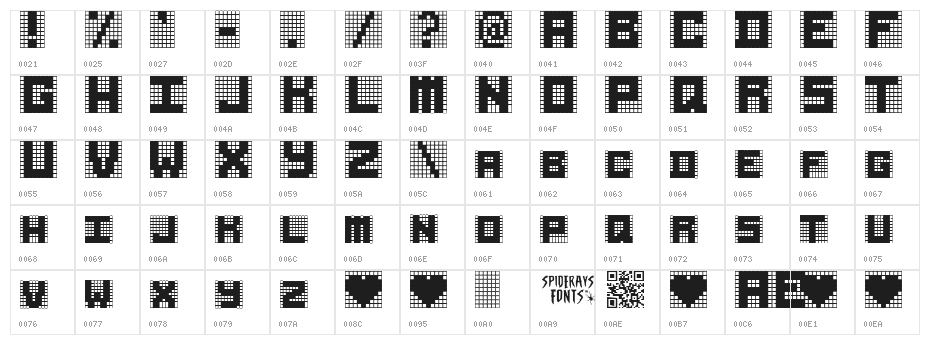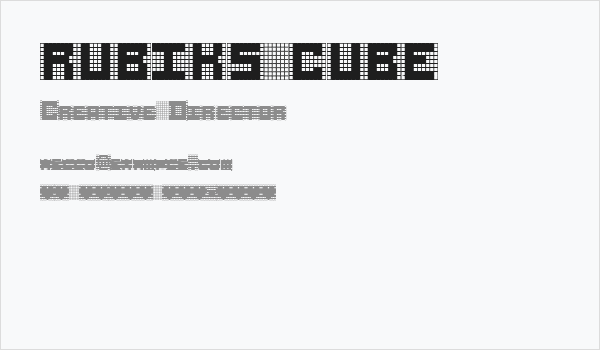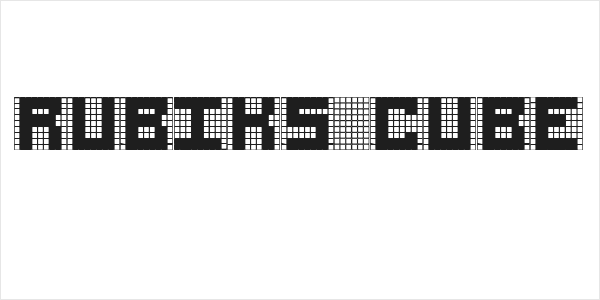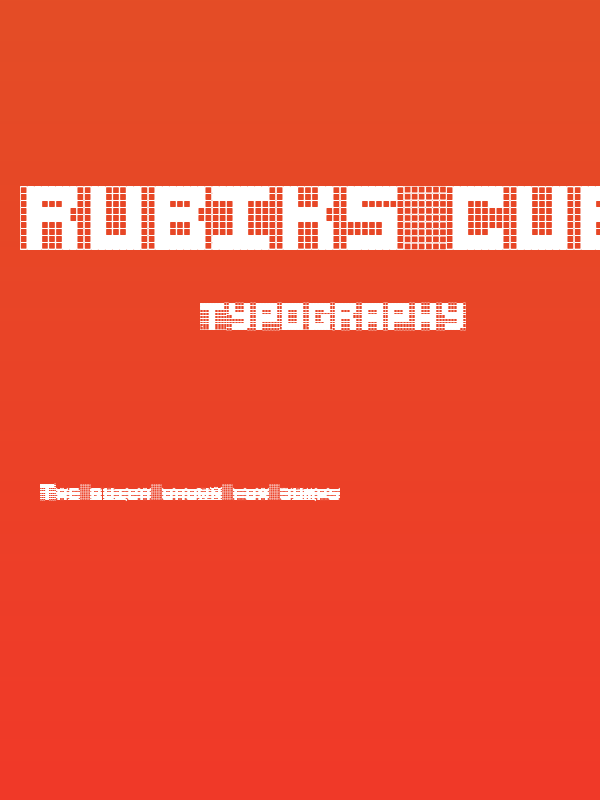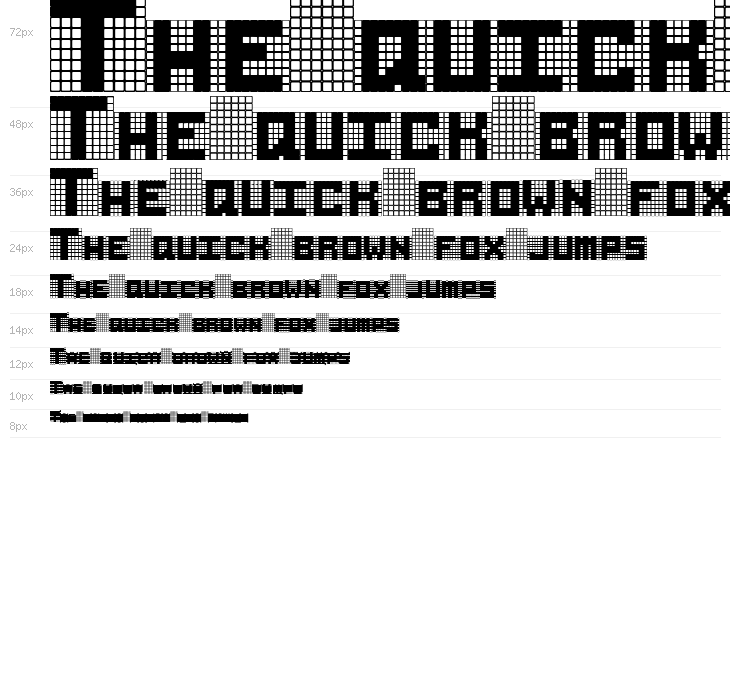
RUBIKS CUBE Font
RUBIKS CUBE Description
This font features a unique and playful design, reminiscent of a pixelated or mosaic style. Each character is composed of small square blocks, creating a grid-like appearance that is both modern and retro. The bold, geometric shapes give it a distinctive look, making it stand out in any design. The font maintains a consistent height across all characters, with a uniform width that adds to its structured and orderly feel. The use of negative space within the characters enhances readability while maintaining the artistic grid pattern. This font is ideal for projects that aim to capture a digital or nostalgic aesthetic.
| Proposed Projects | Perfect for digital art, retro-themed designs, video game graphics, and creative posters. |